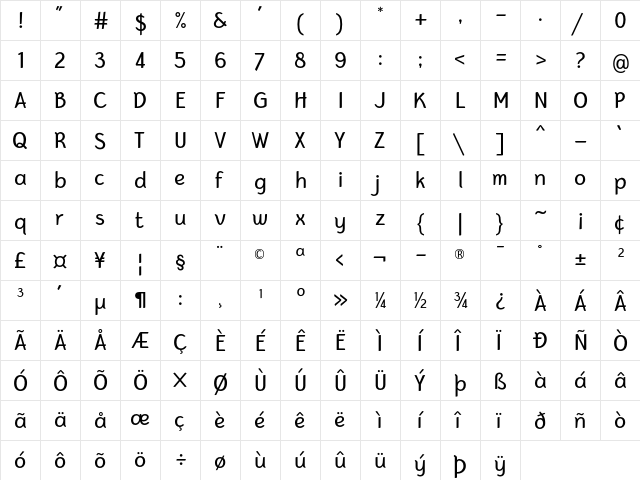
Bertina Regular
Bertina Regular Font Preview
Bertina Regular
Design Context for Bertina Typeface
Bertina is a composed and adaptable typeface that performs quietly and consistently across a wide range of design contexts.